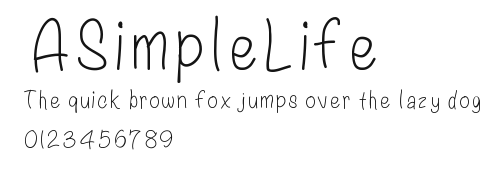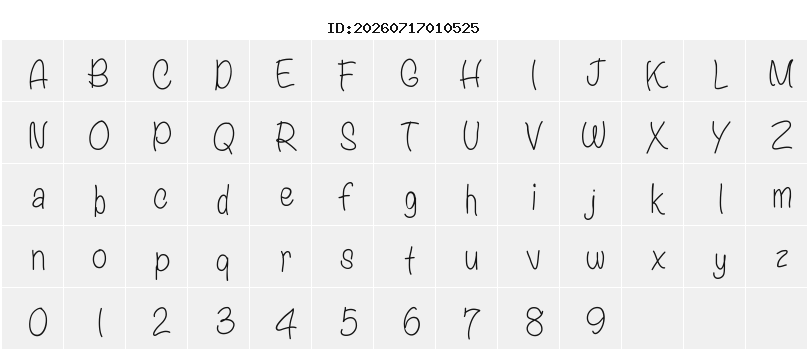
ASimpleLife Preview
• Font Name: ASimpleLife
• Full Font Name: ASimpleLife
About ASimpleLife.ttf
ASimpleLife.ttf is a modern, elegant sans-serif font designed for ultimate readability and visual harmony. Perfect for branding, headlines, web design, and print materials.